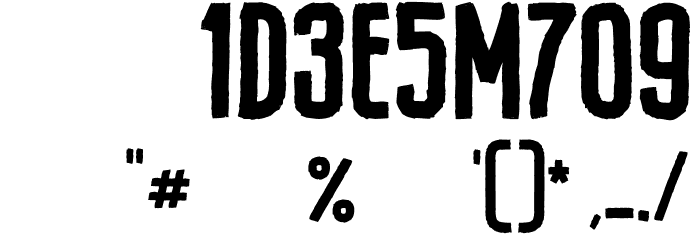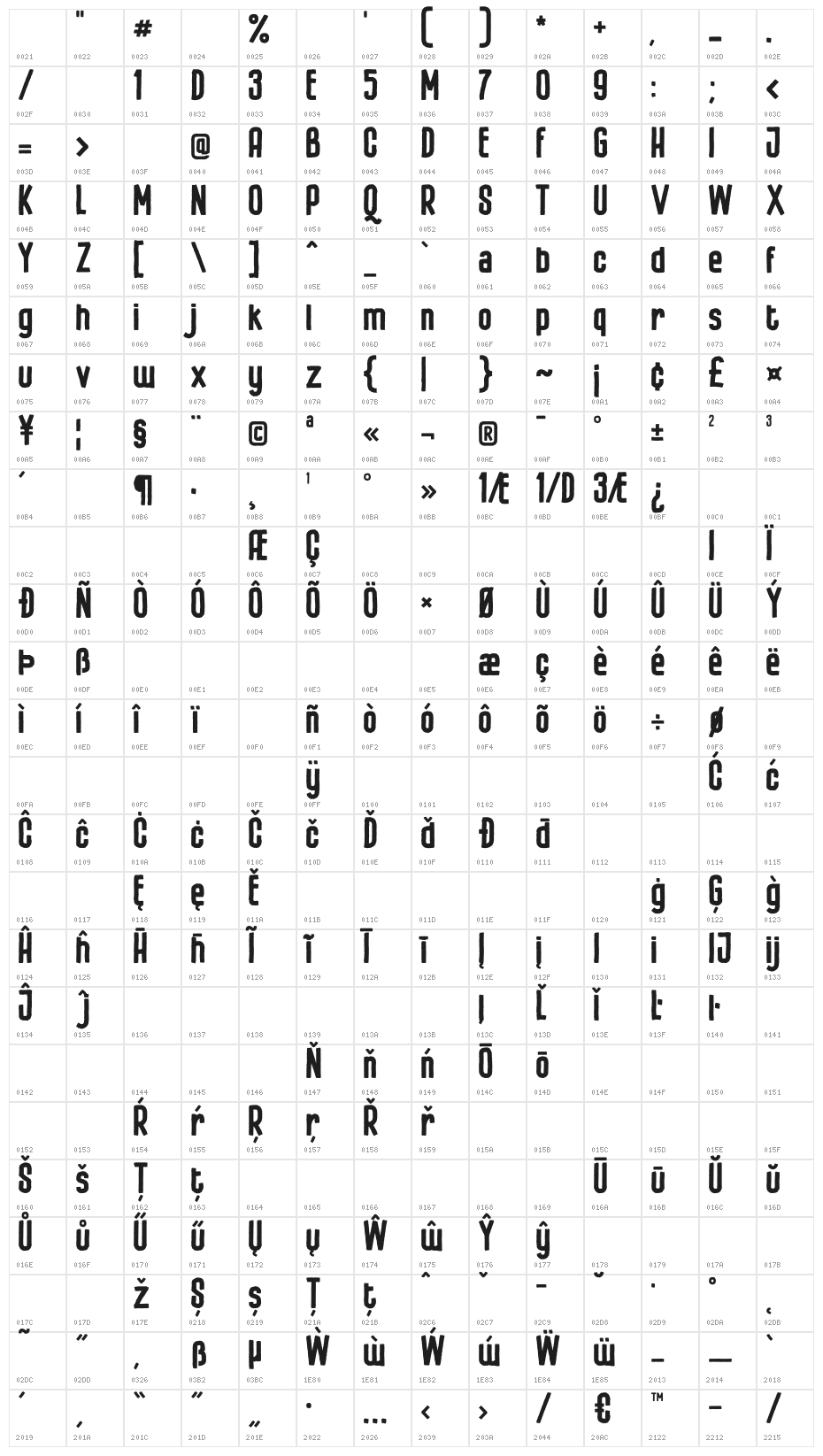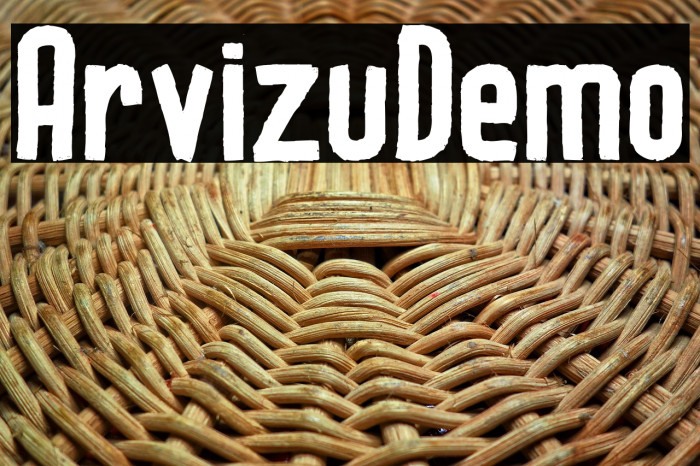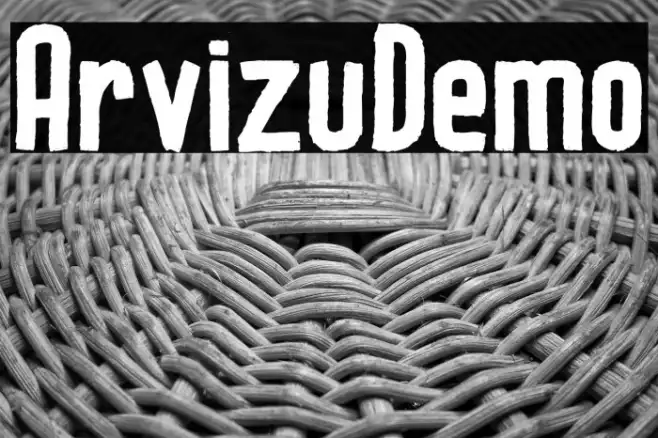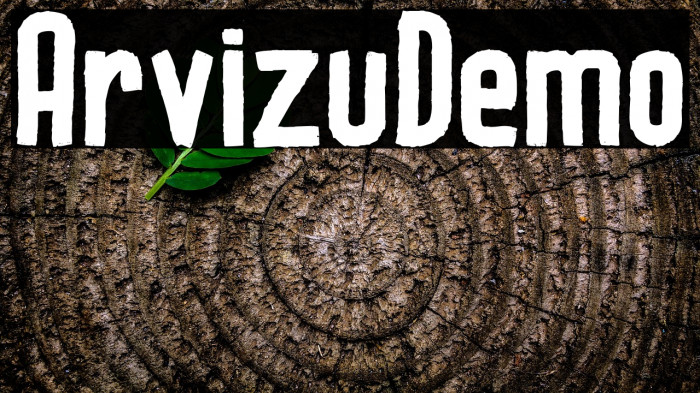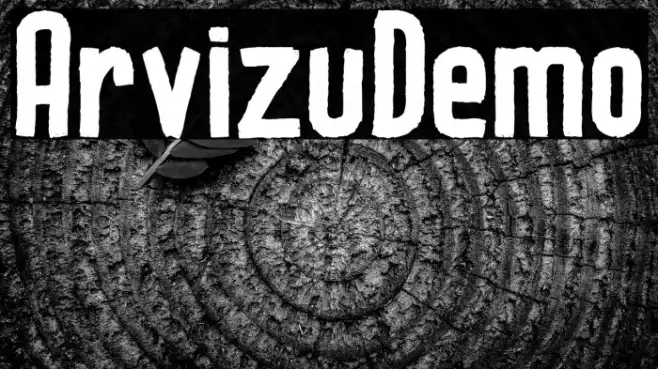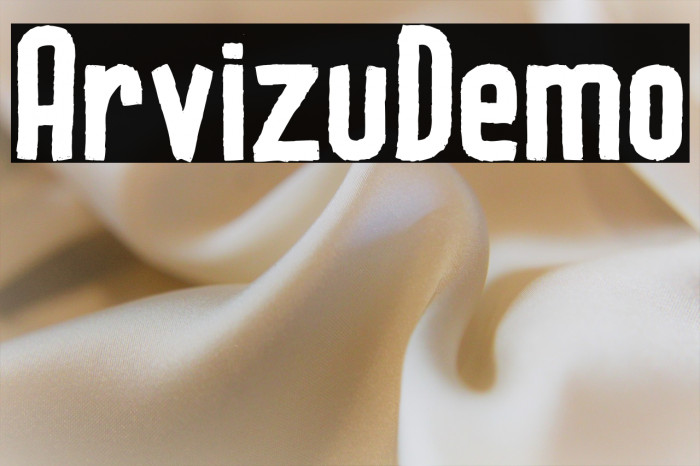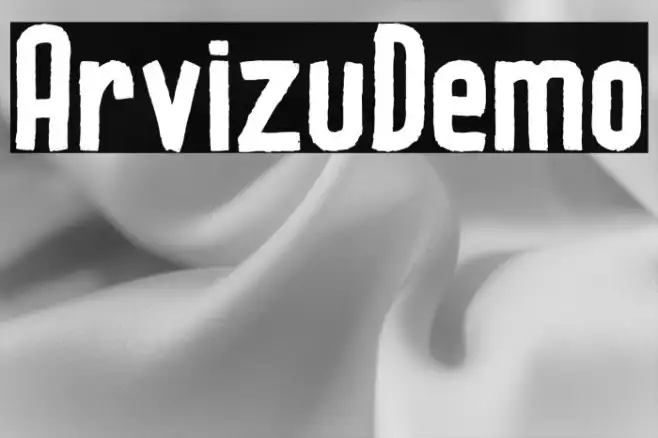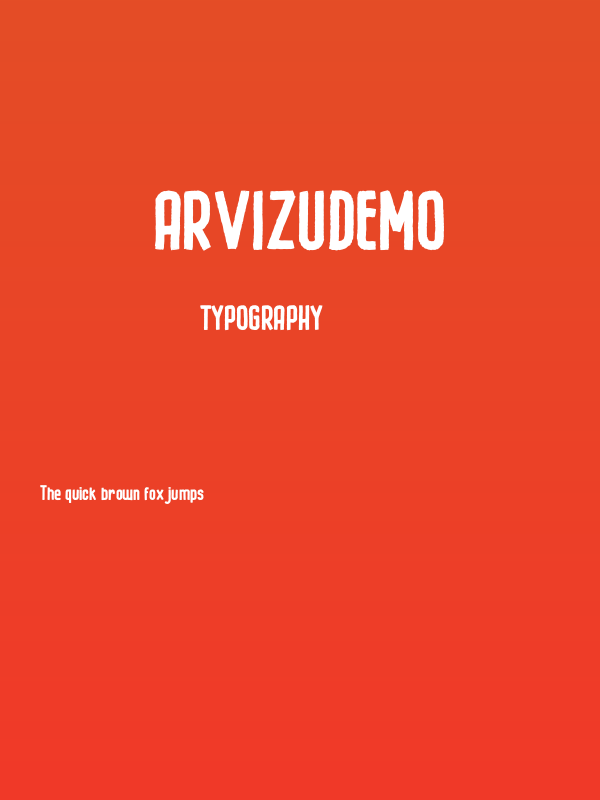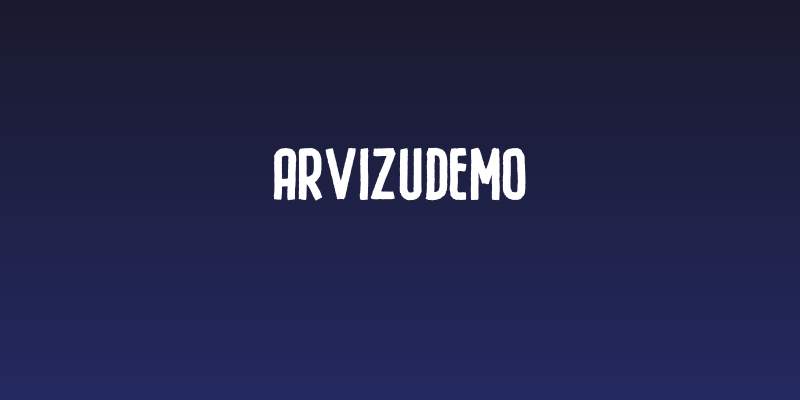
ArvizuDemo Font
ArvizuDemo Description
This font features a bold, hand-drawn style with a slightly rough texture, giving it a rustic and organic feel. The letters are tall and narrow, with consistent stroke widths that create a uniform appearance. The uppercase and lowercase characters maintain a cohesive look, while the numerals and special characters complement the overall design. The font's unique character is evident in its slightly irregular edges, adding a touch of authenticity and charm. This style is suitable for projects that require a personal, handcrafted touch, making it ideal for artisanal brands, creative projects, and unique design elements.
Overall StyleRustic
Use CaseLogos, Headlines, Creative projects
Proposed ProjectsPerfect for artisanal branding, creative projects, and unique design elements.